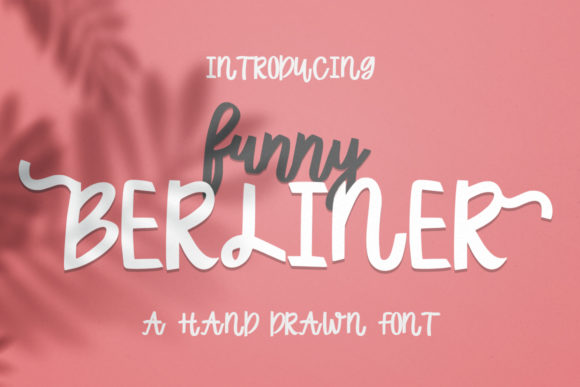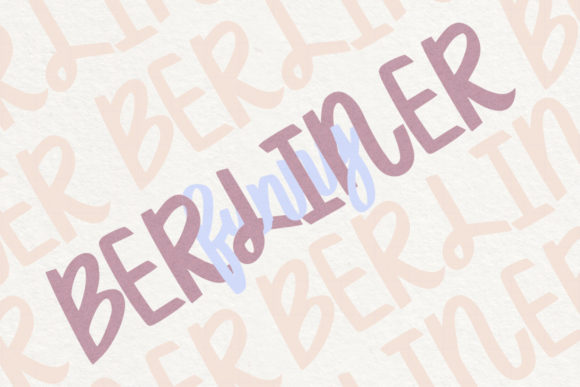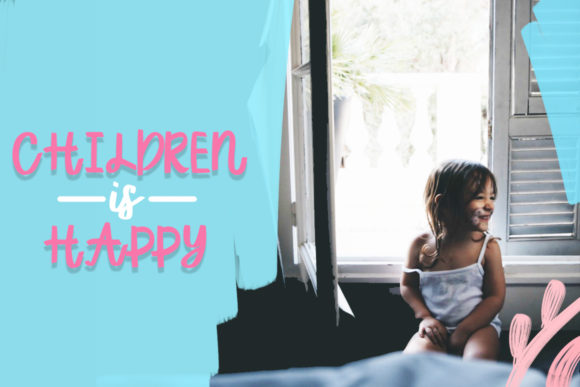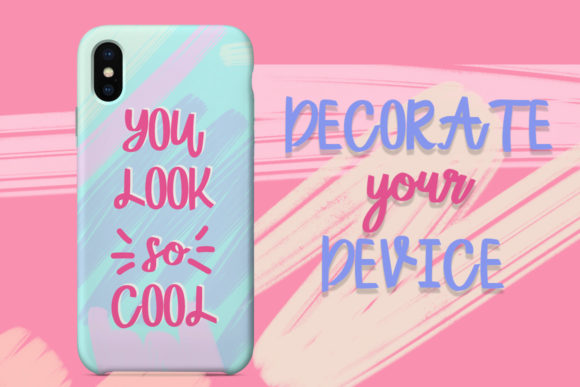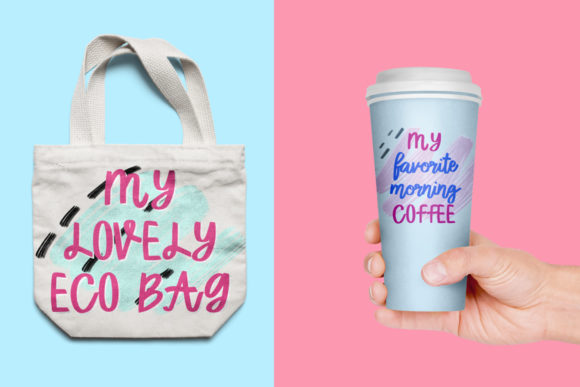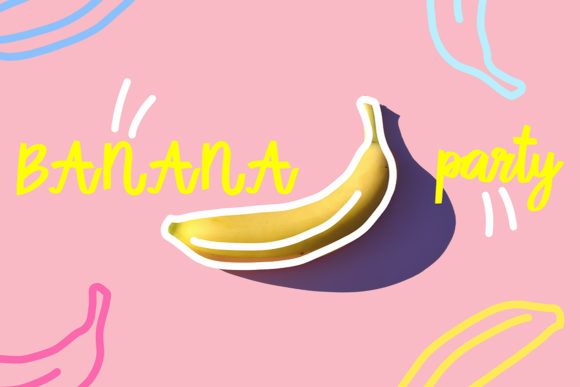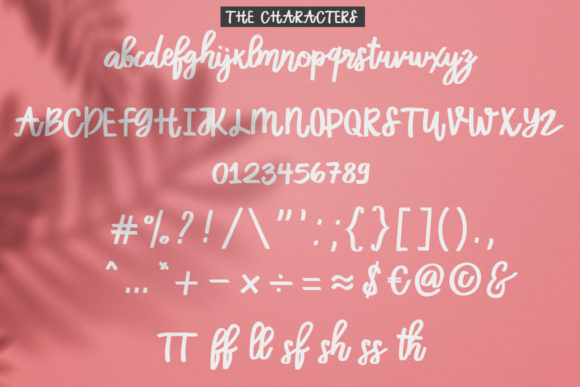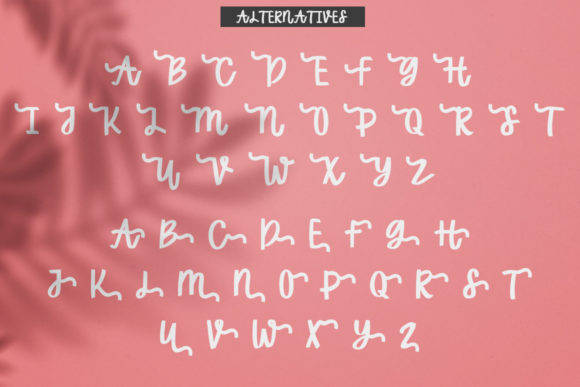
Funny Berliner Font
About Funny Berliner Font
Funny Berliner is a lovely script font featuring cute handwritten letters. It is perfectly suited for a wide variety of projects!